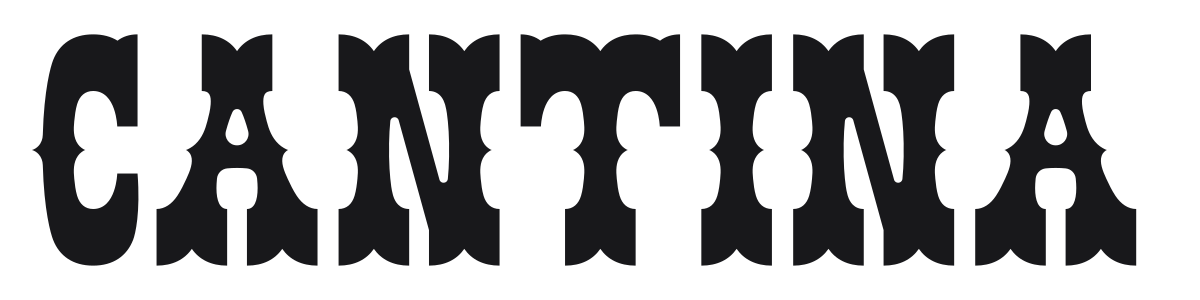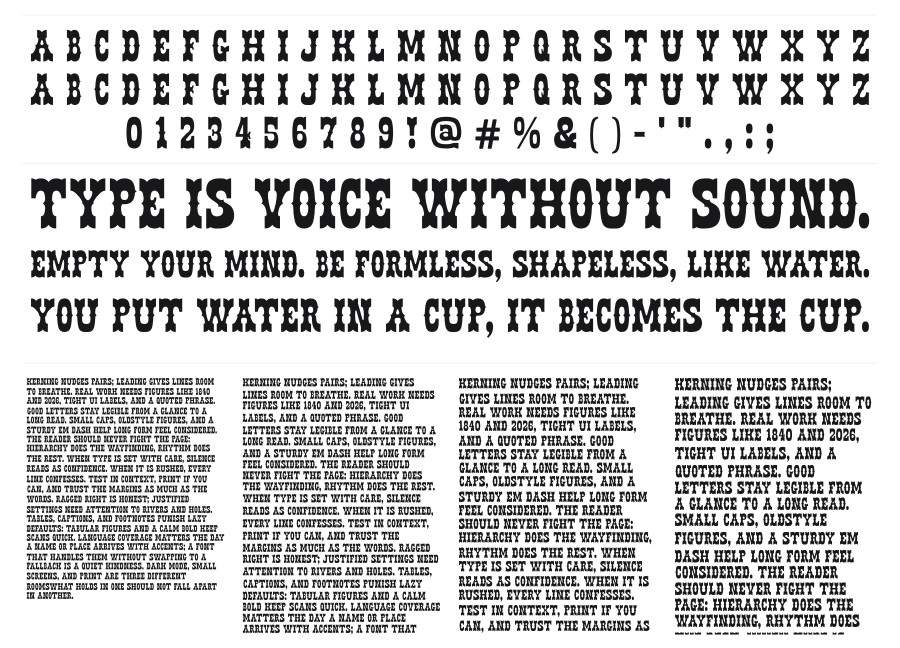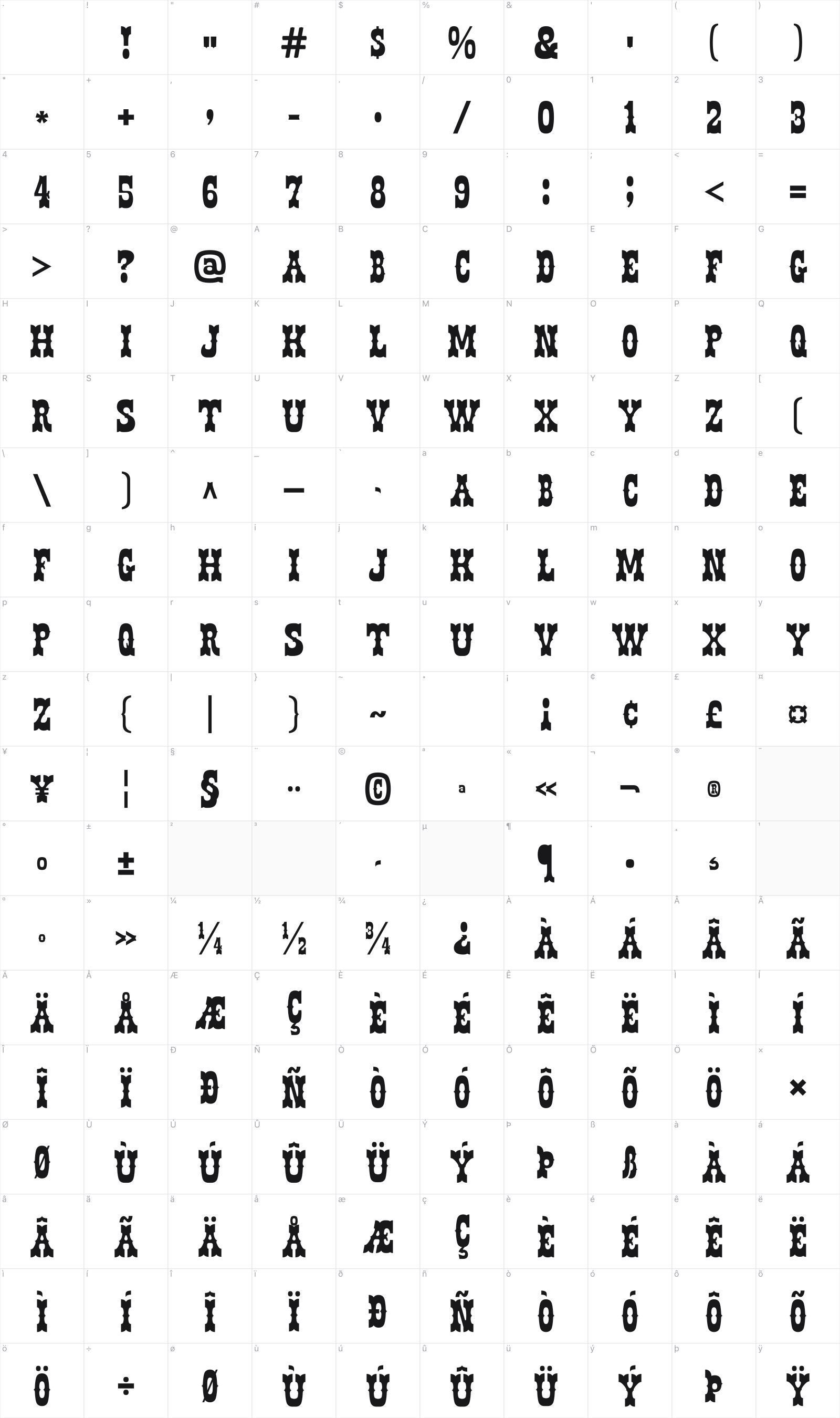
Cantina
Cantina is a bold Western slab-serif loaded with 19th-century saloon poster character. The ornamental notches, bracket flourishes, and heavy high-contrast strokes give it an authentic frontier feel without feeling like a cliché. Strong at large sizes for posters, signage, and branding with a Southern or Western edge.